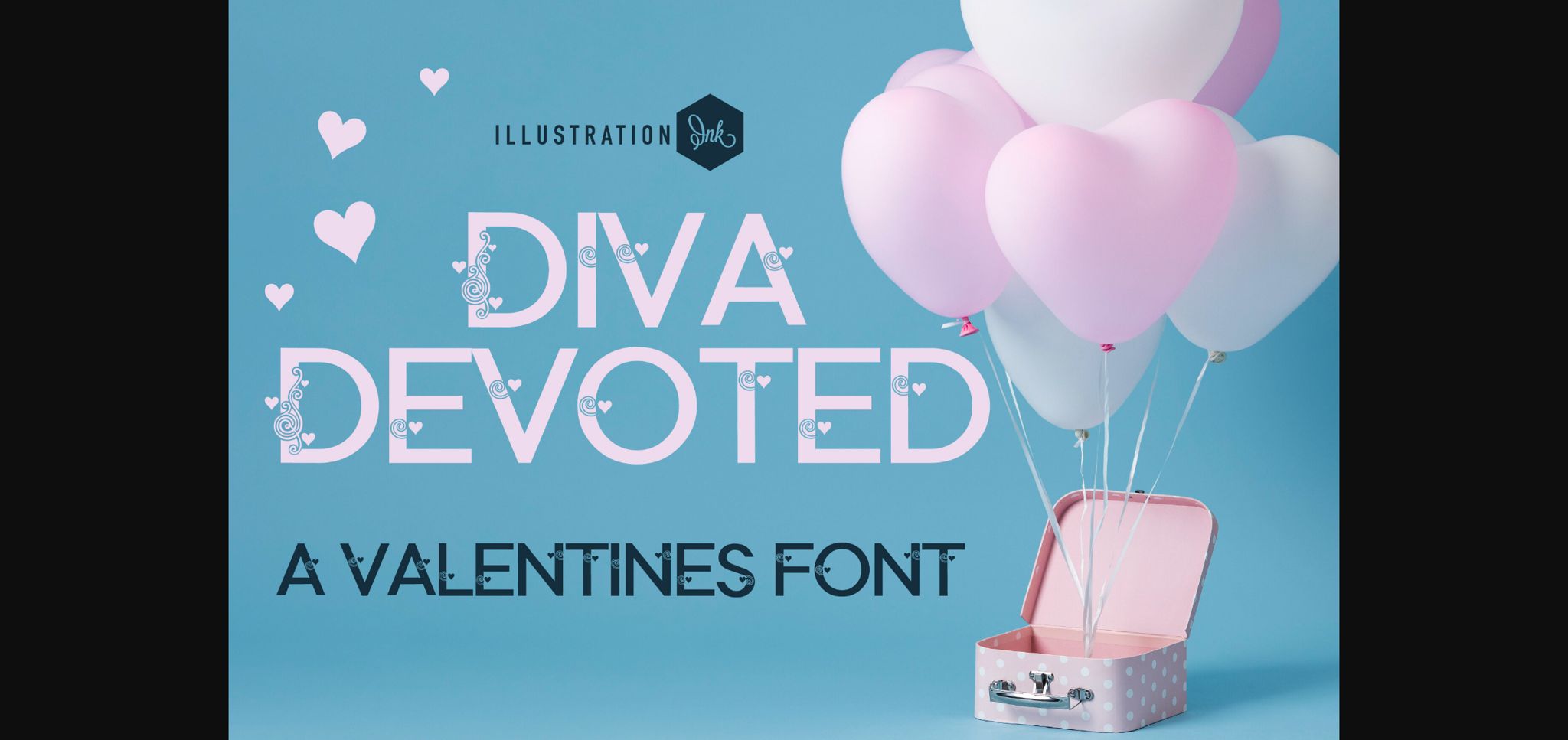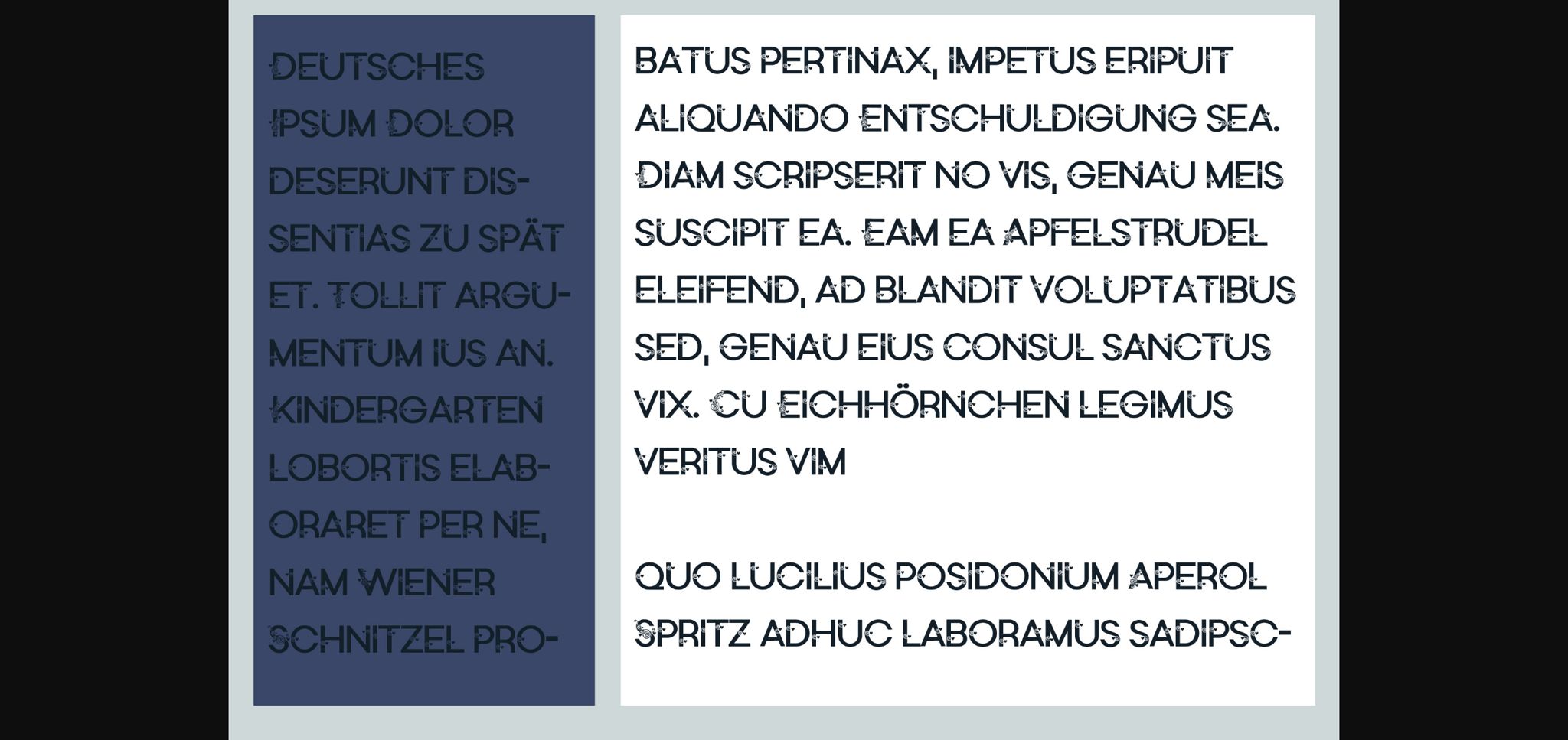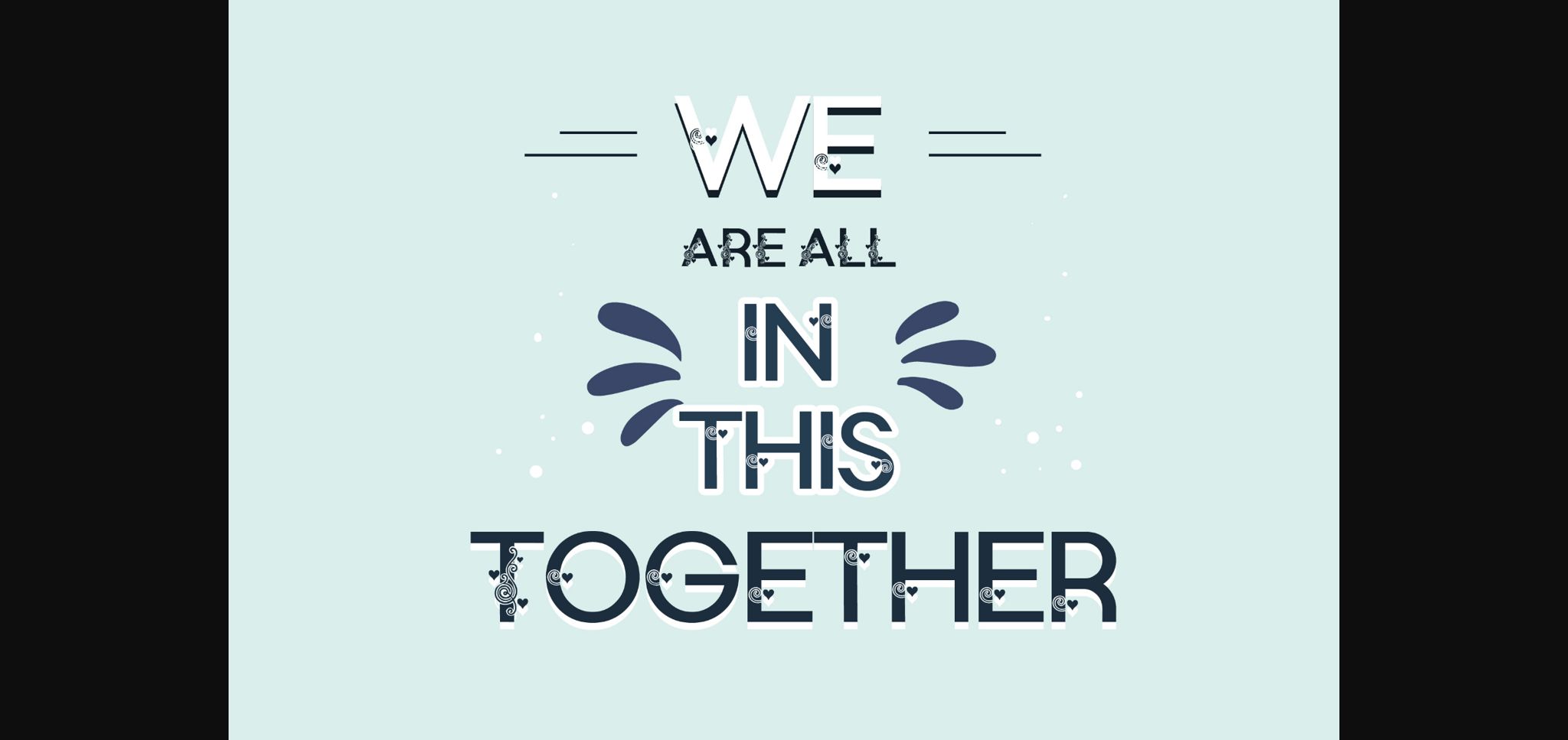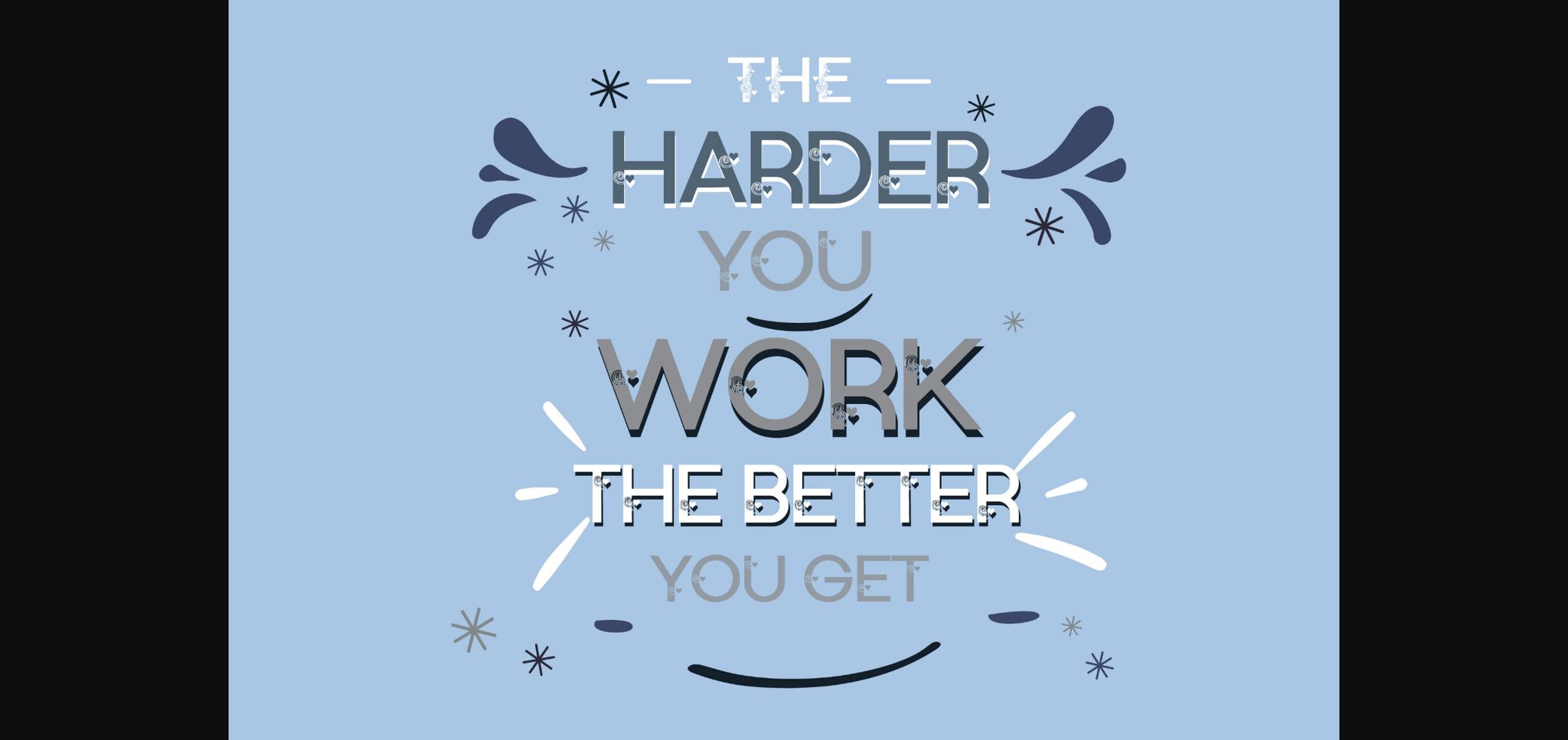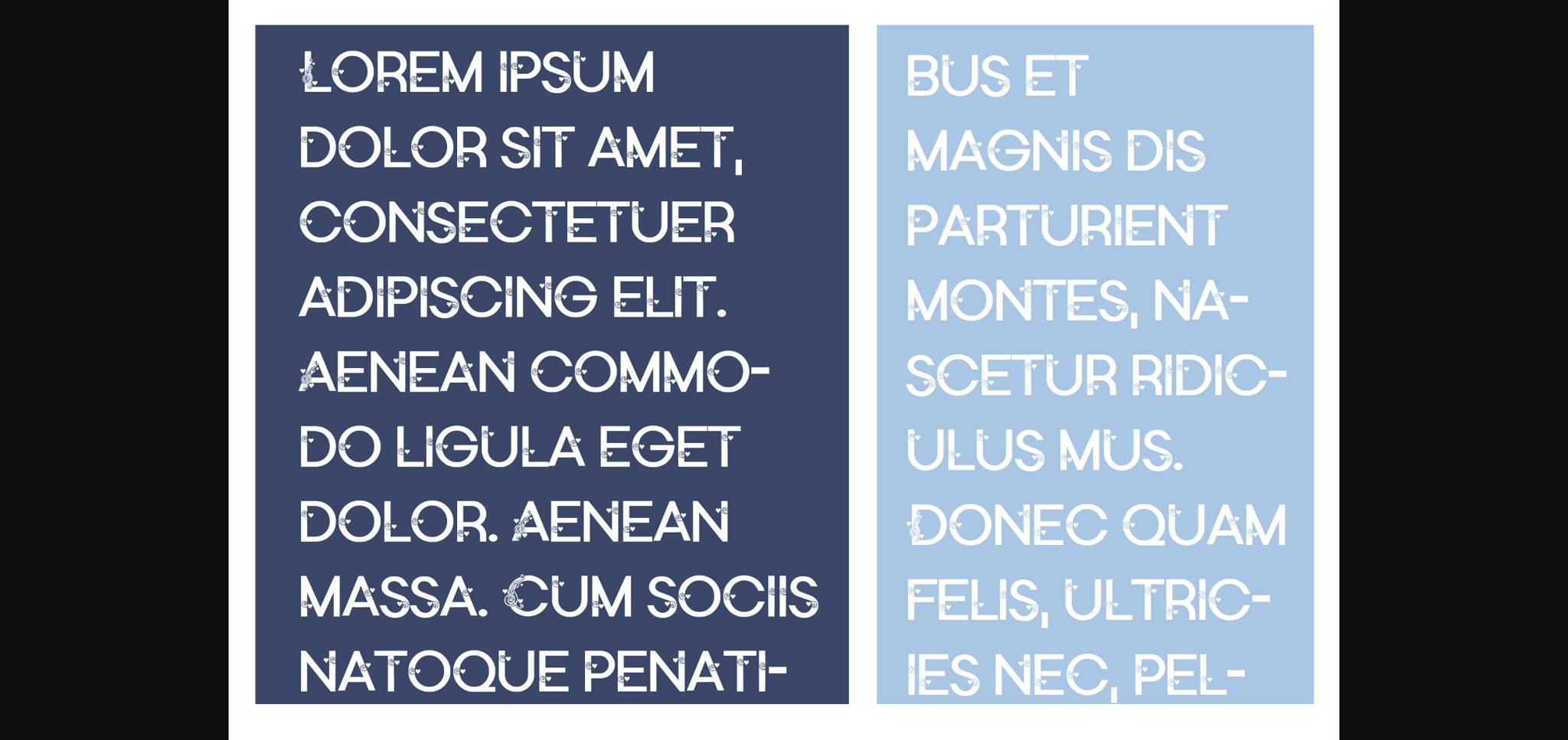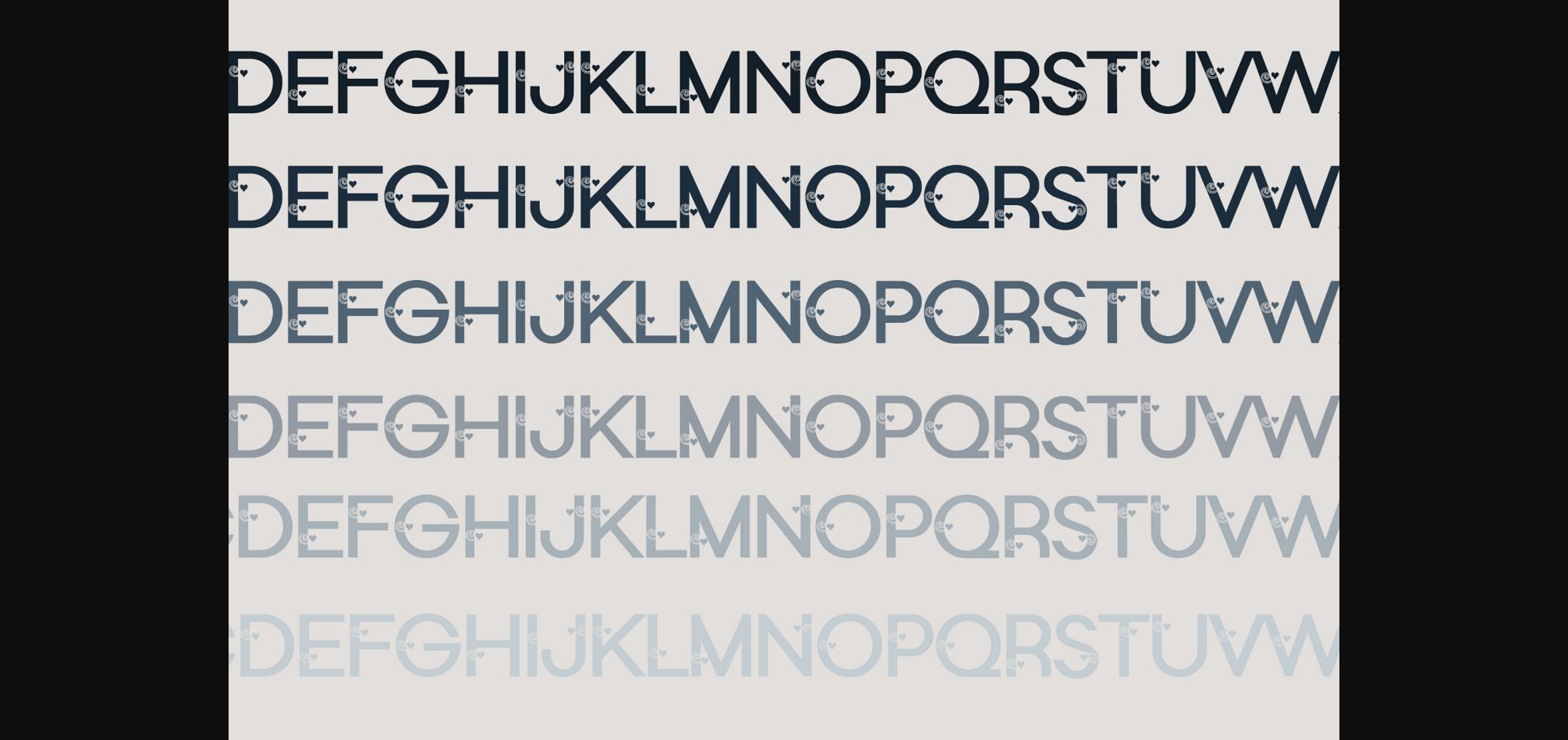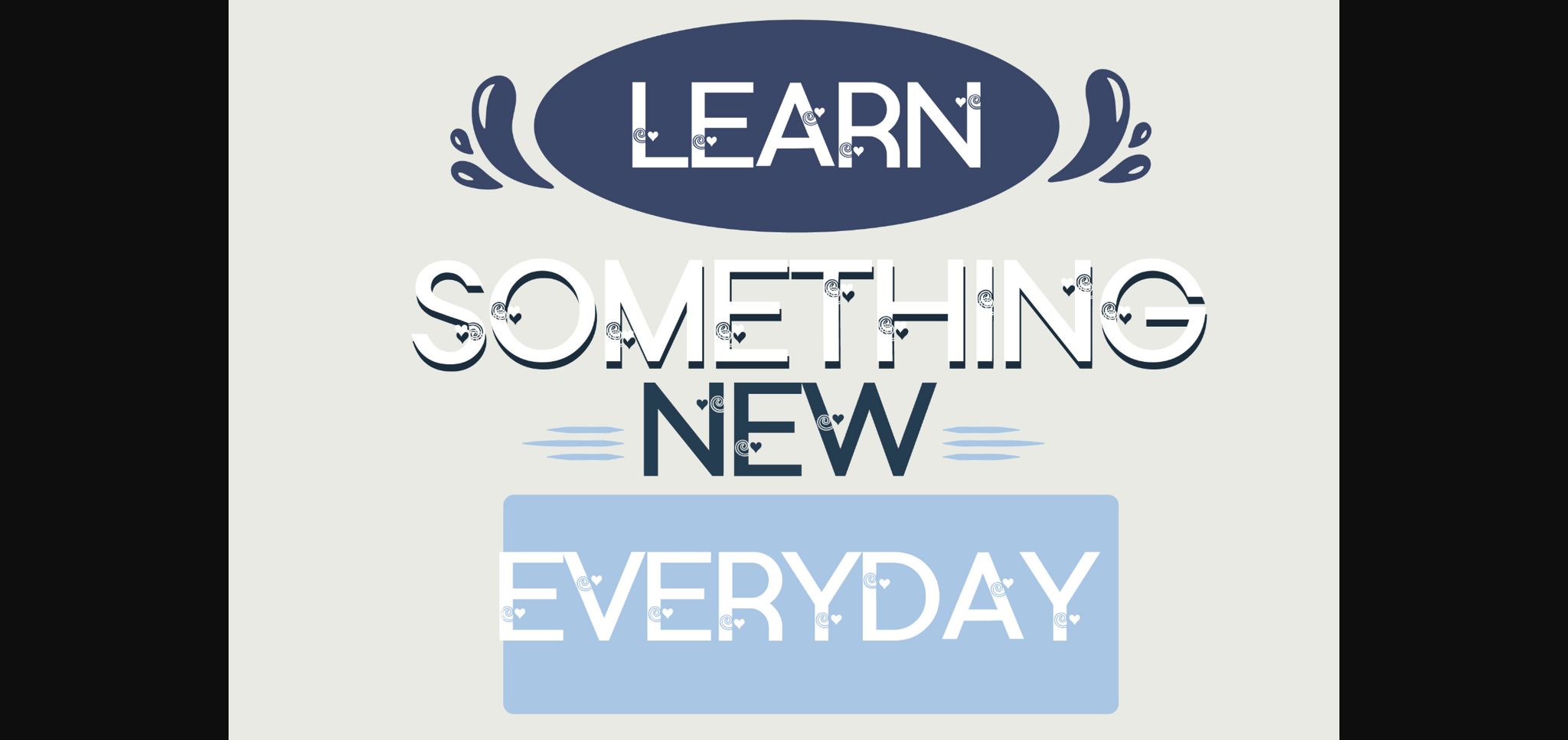
Diva Devoted Font
About Diva Devoted Font
This sans-serif font features flourishes and hearts throughout. The uppercase is far more flourished than the lowercase. For best results mix cases as you type. No matter the topic, this font will be an incredible asset to your fonts’ library, as it has the potential to elevate any creation.